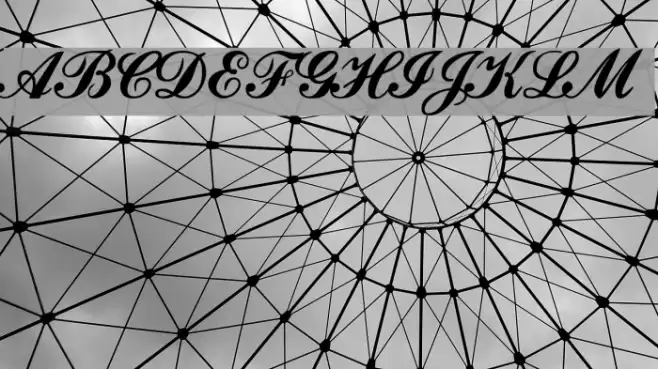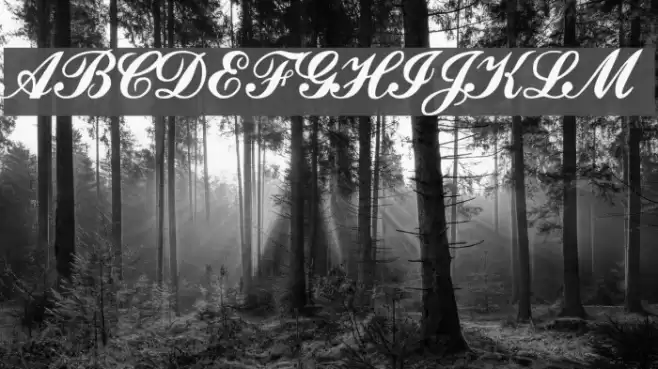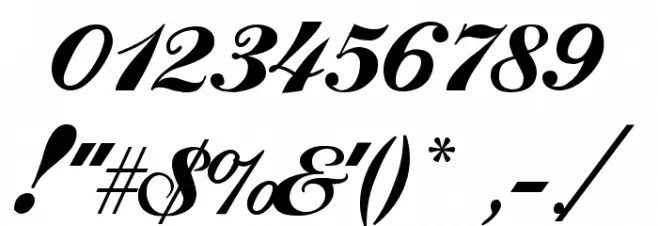
CounselorScript Medium Font
CounselorScript Medium Description
This elegant script font features a flowing, cursive style with a medium weight that balances readability with decorative flair. The uppercase letters are ornate, with intricate loops and flourishes, while the lowercase letters maintain a smooth, connected flow. Numbers and special characters are designed to complement the overall aesthetic, adding a touch of sophistication. The font's strokes vary in thickness, providing a medium contrast that enhances its graceful appearance. Ideal for projects that require a touch of elegance and formality, this font is versatile enough for both digital and print applications.
An elegant script font with medium weight and flowing, cursive style from Script fonts.
- Proposed Projects: Perfect for wedding invitations, elegant branding, formal event programs, and decorative signage.
- Overall Style: Elegant, Decorative
- Use Case: Headlines, Invitations, Branding